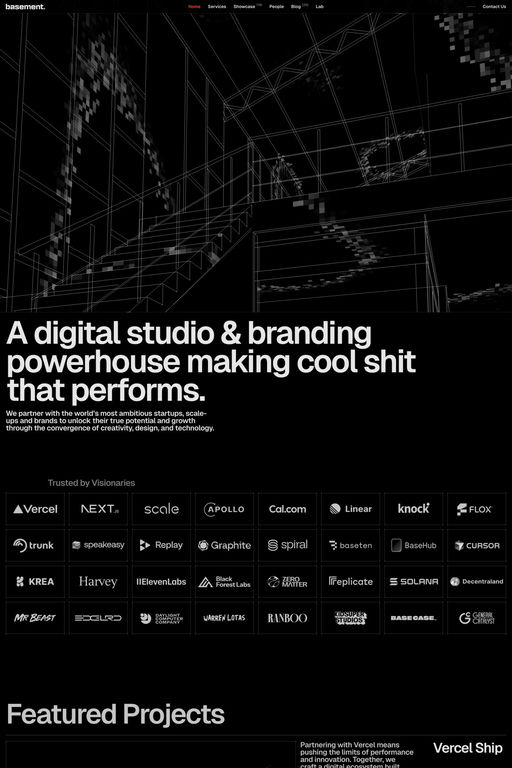
FFFlauta is a display typeface from Basement Foundry.
This pixel-perfect font is a nostalgic and unnecessary tribute to the golden era of point-and-click games and the early glorious days of the internet. Pst.. click on the tv to know more about this font.
A1 features 1 website using FFFlauta. It leans towards Dark, Big type, and Interactive design styles, and it’s most often built with Next.js.